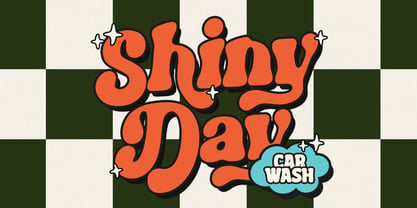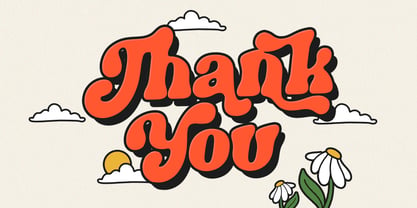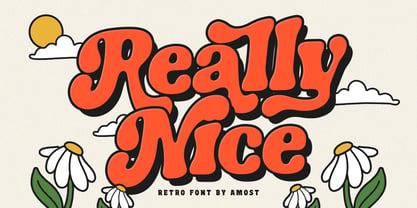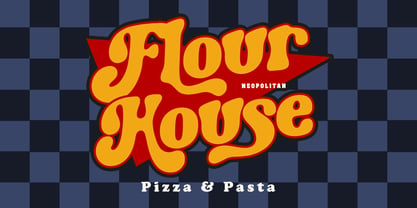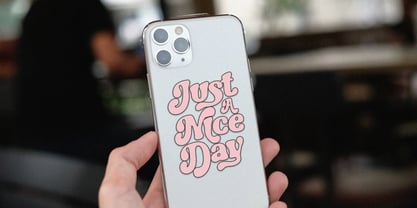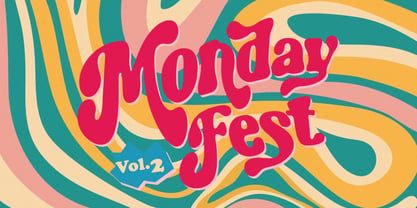
Really Nice
The Really Nice Font Family was designed by Aldi Hendarto and published by AMost. Really Nice contains 1 styles. More about this family
Really Nice is a retro groovy display font inspired by the bold, carefree aesthetics of the '60s and '70s. With its chunky curves, playful letterforms, and nostalgic personality, this font instantly brings warmth, happiness, and vintage charm to any creative project. Whether you're designing for print or digital media, Really Nice makes every headline stand out with a fun and expressive look.